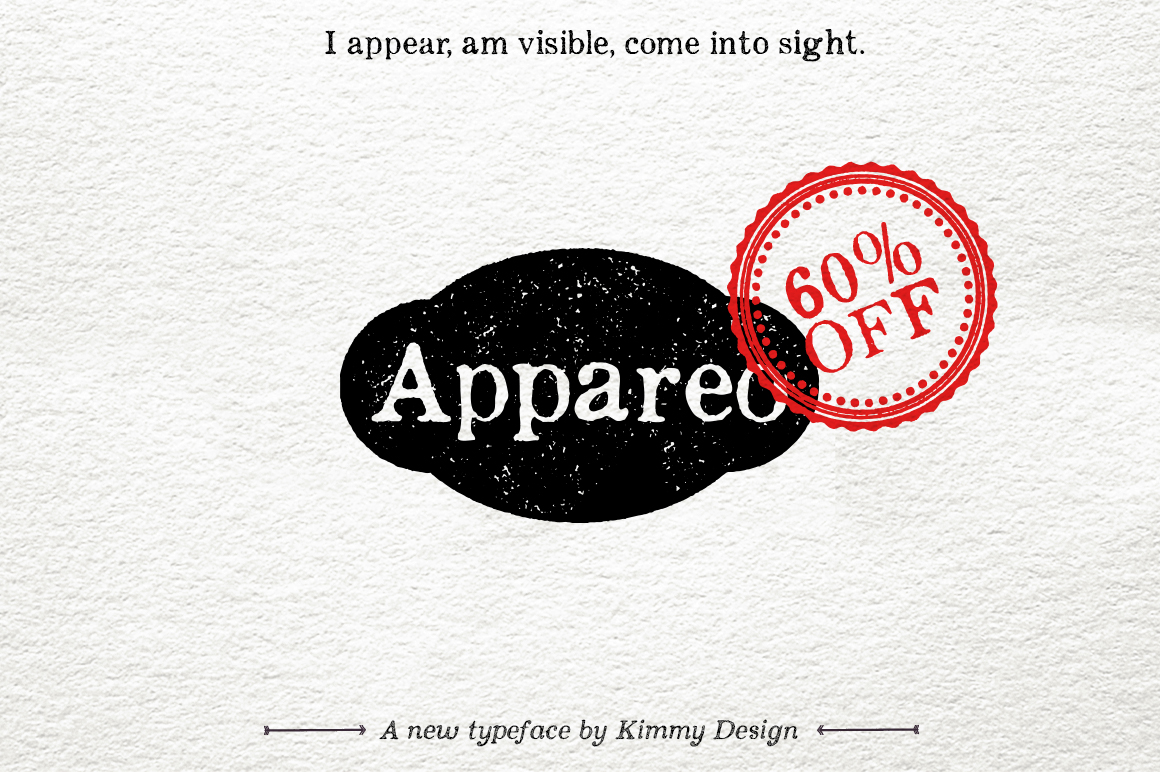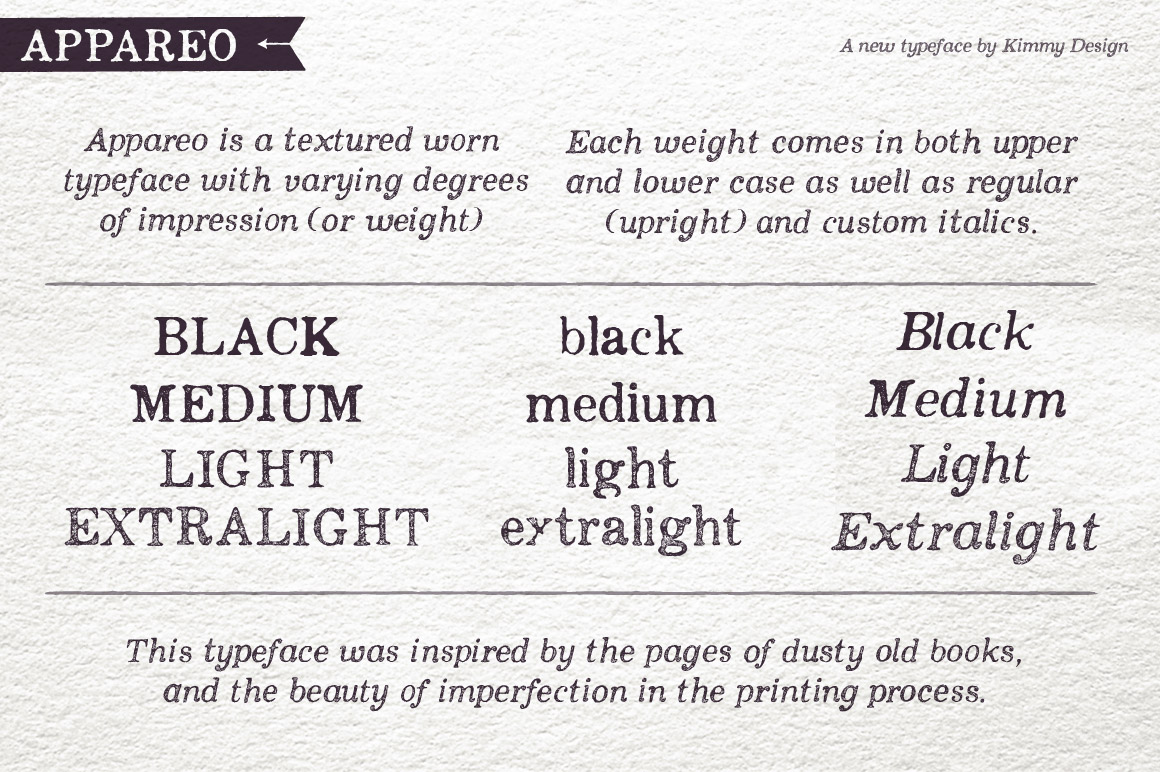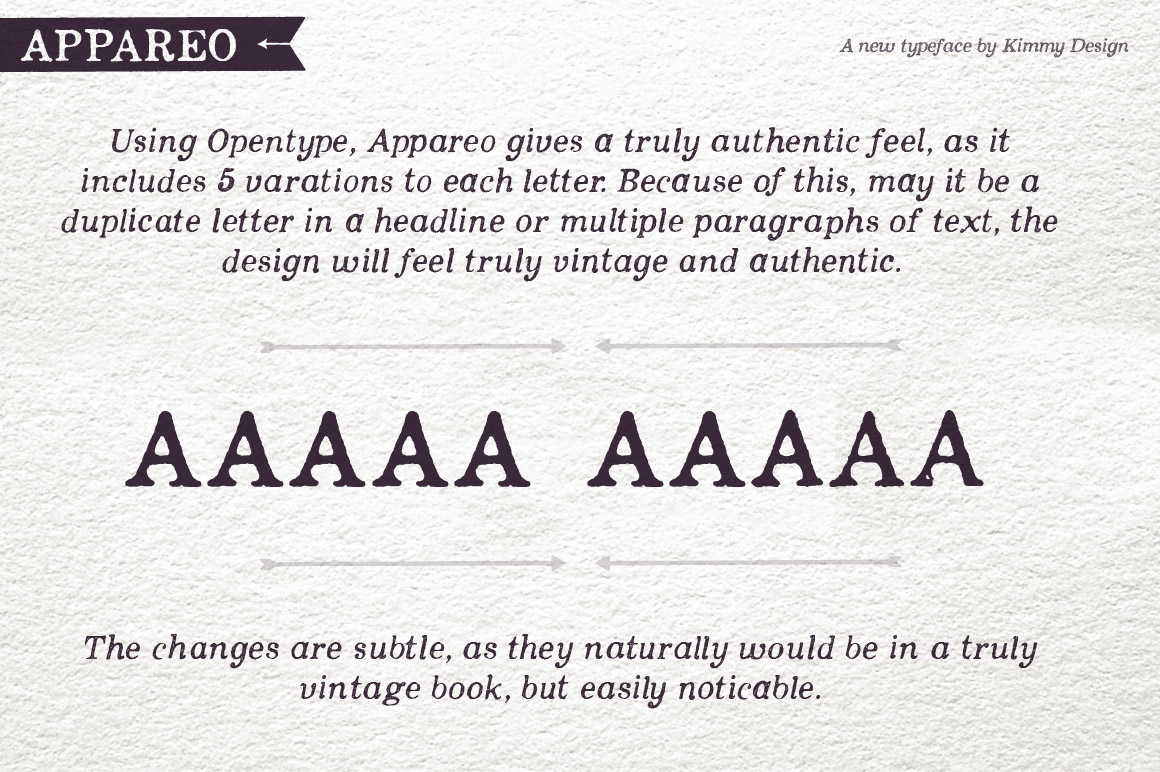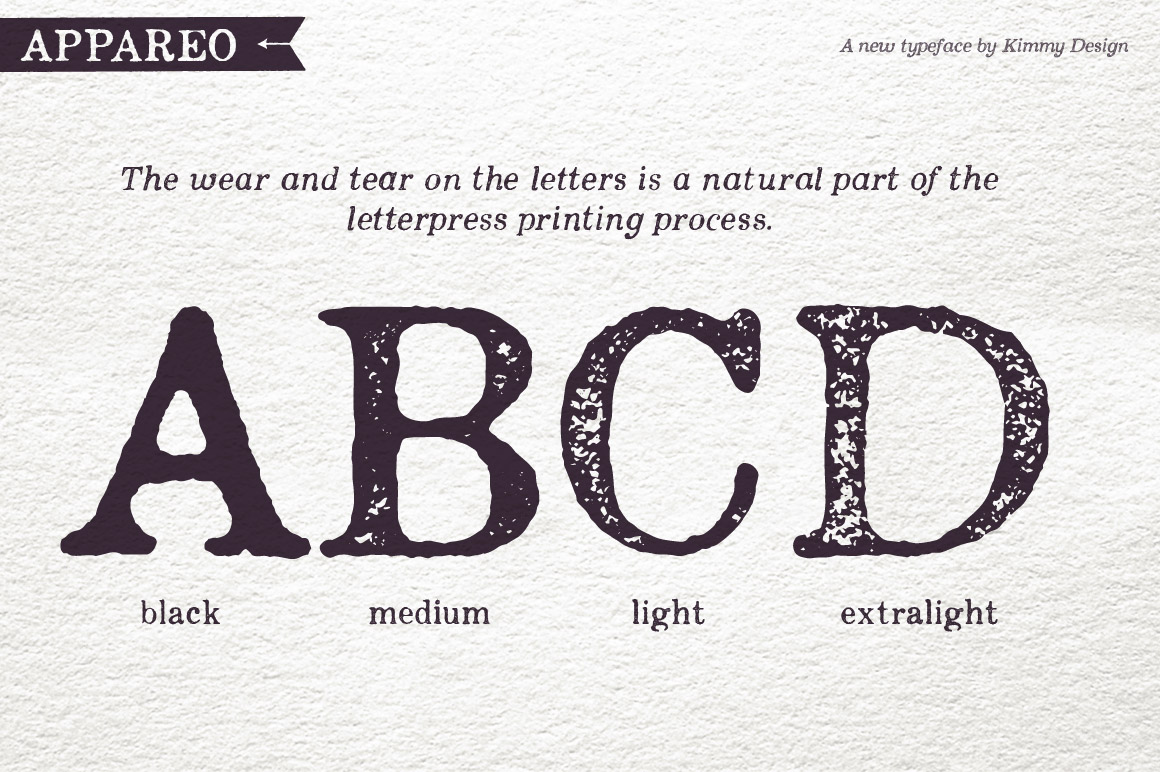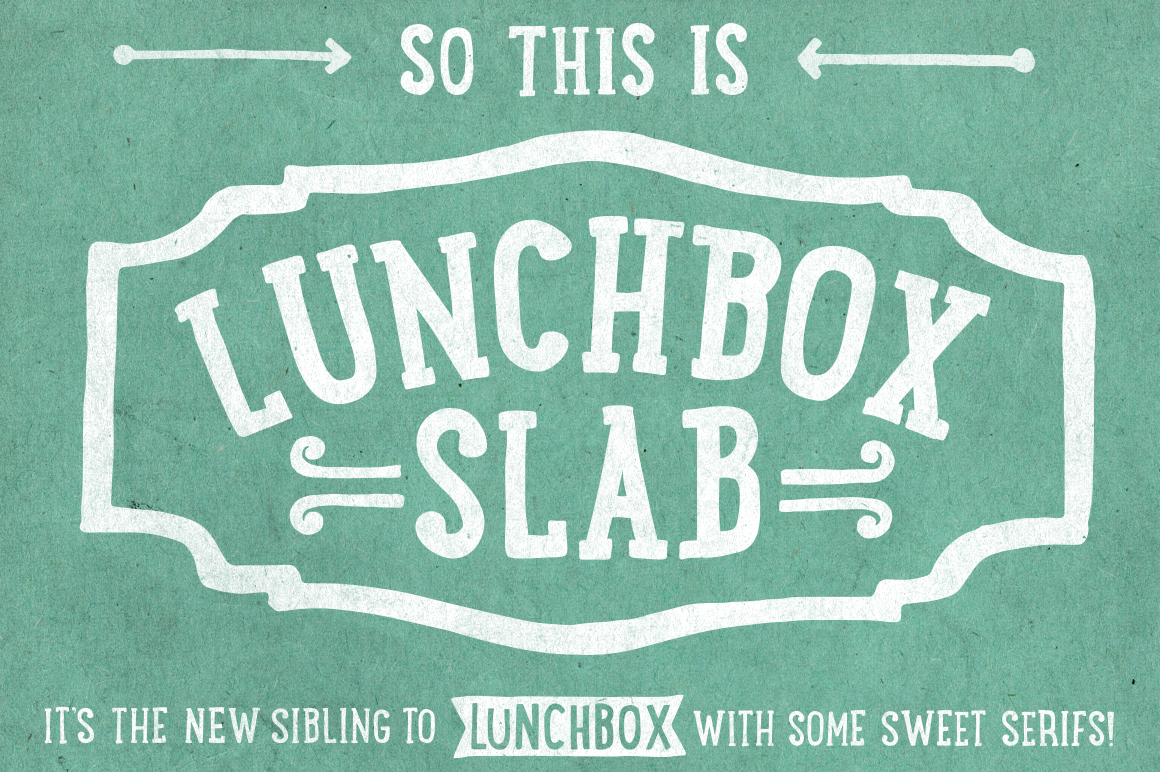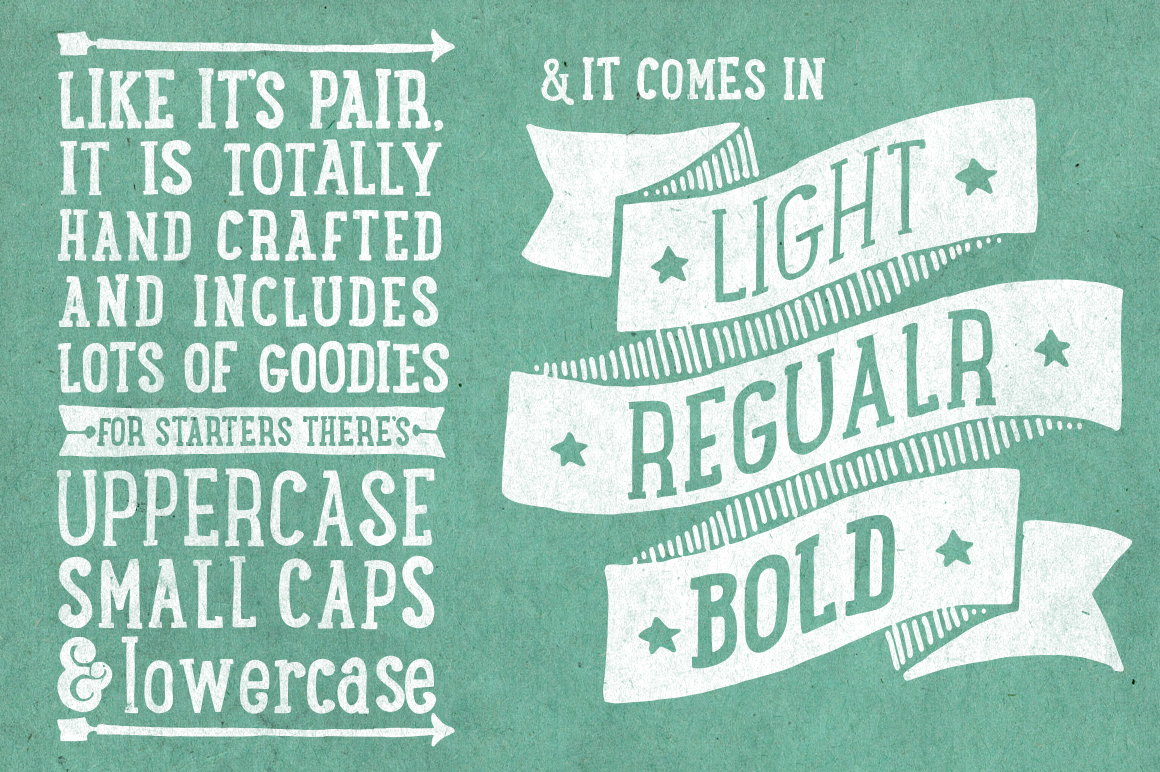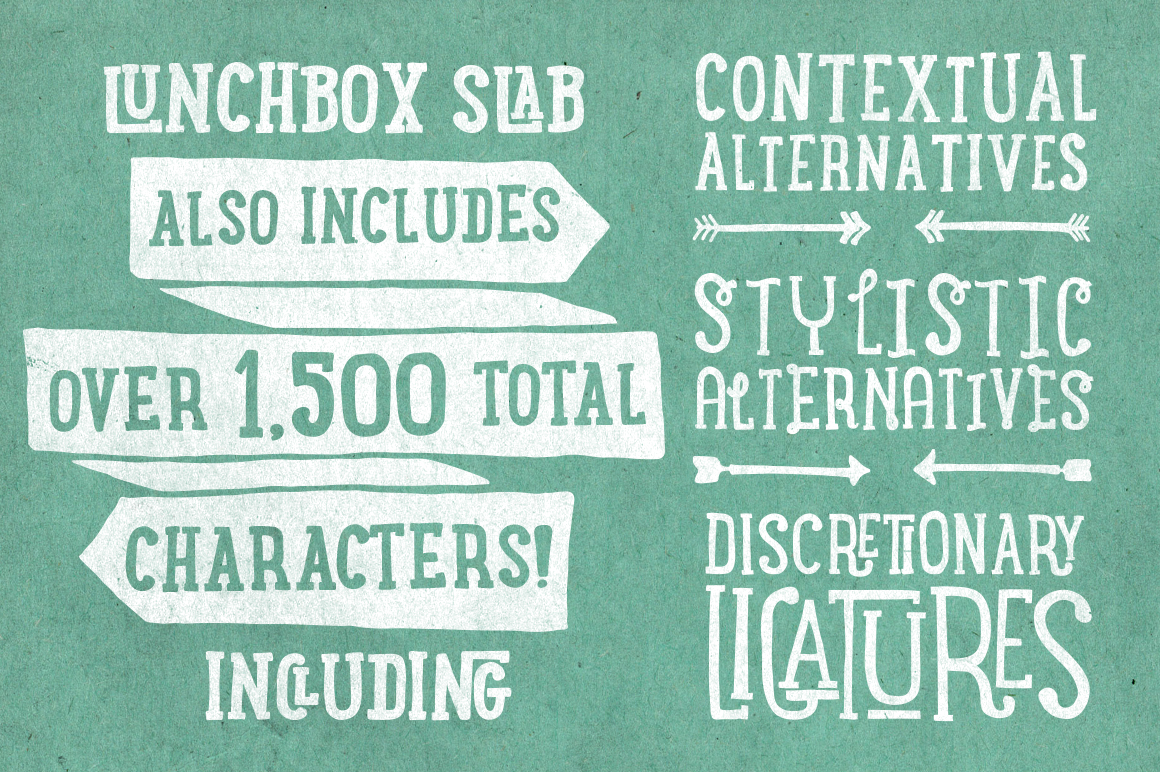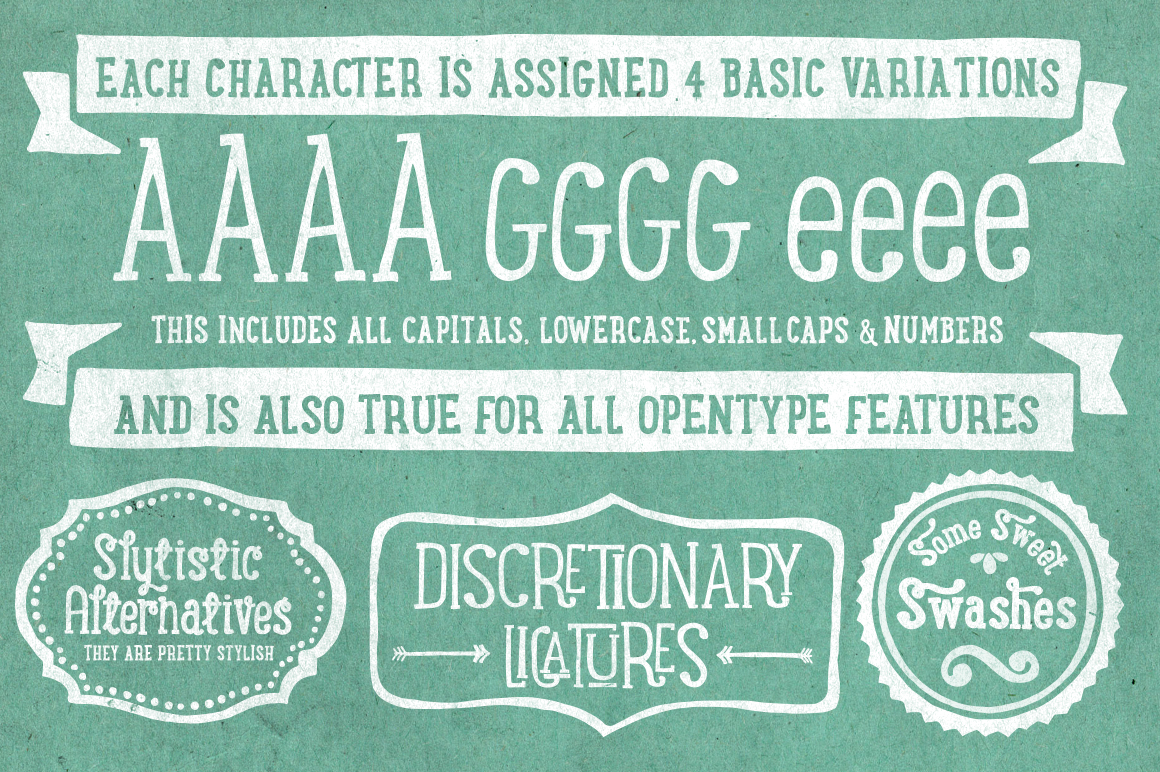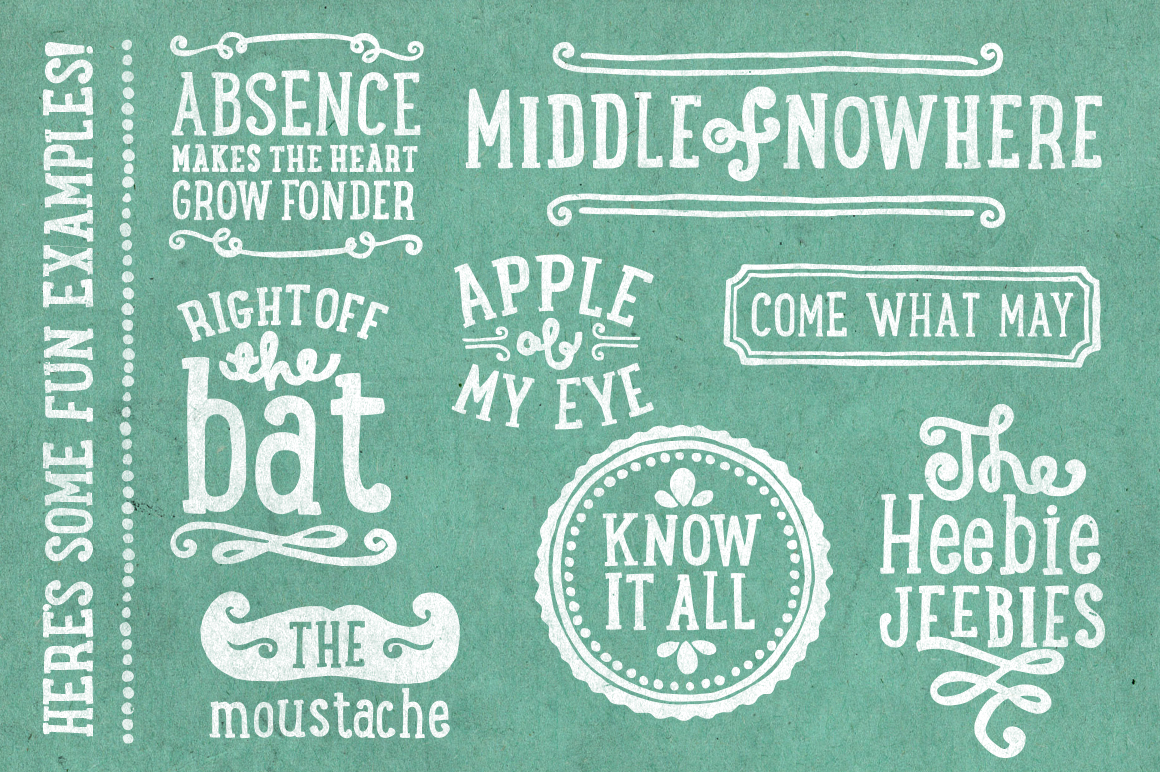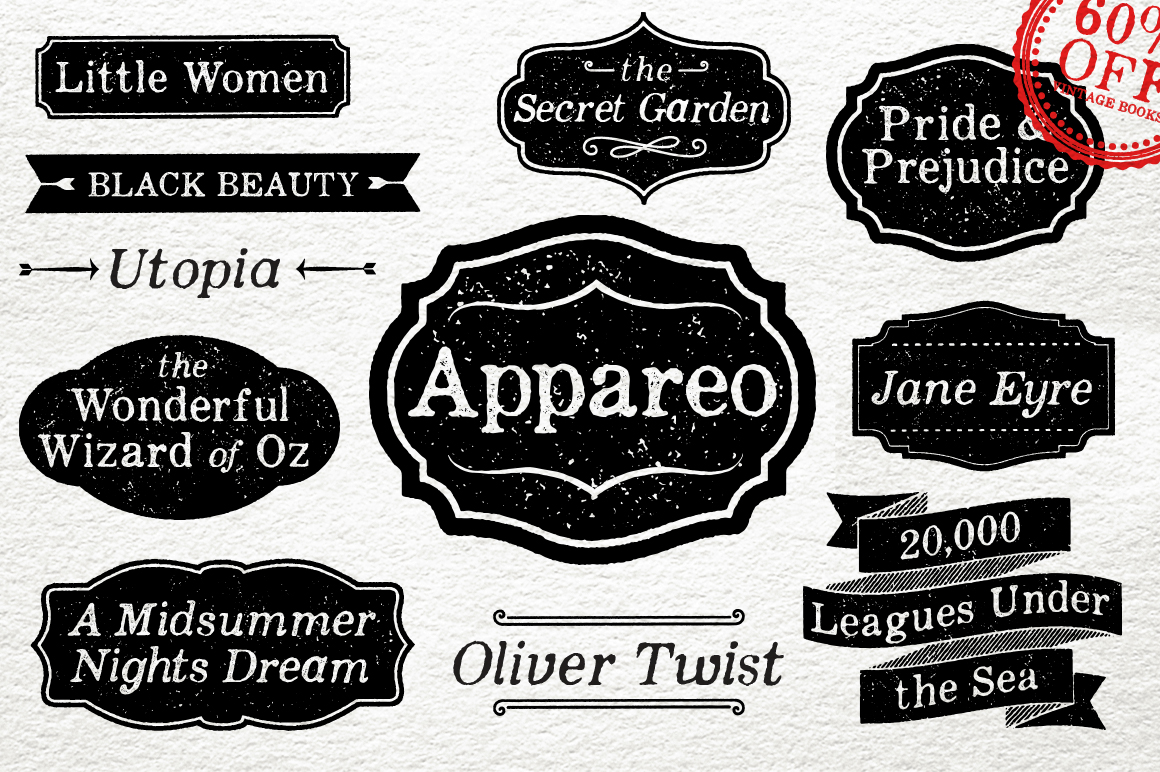
1. Lunchbox by Kimmy Design
Lunchbox is a uniquely handdrawn typeface that gives infinite customizable options and a fully authentic look. This unique font comes in light, regular and bold and includes a wide array of other languages.
Using Lunchbox’s Opentype features gives access to over 1,500 different characters and basically creates 3 different font styles. Contextual alternatives give each letter 4 different character styles, all cycling through each other to ensure that no two letters ever show up together. There is also a custom set of small caps, each with 4 style variations as well. Stylistic alternatives give an extra handdrawn flourish, loop and slight variation, also with 4 different styles per letter.
2. Lunchbox Slab by Kimmy Design
Lunchbox Slab is the pair of Lunchbox, a uniquely hand-drawn typeface that gives infinite customizable options and a fully authentic look. The serifs in Lunchbox Slab are simple blocks, with bulbous terminals on curved letters, which creates a unique effect.
Identical to it’s pair behind the scenes, Lunchbox Slab’s Opentype features allows access to over 1,500 different characters. Contextual alternatives give each letter 4 different character styles, all cycling through each other to ensure that no two letters ever show up together. There is also a custom set of small caps, each with 4 style variations as well.
3. CPL Kirkwood by Kimmy Design
CPL Kirkwood Knockout is an all caps distressed condensed bold sans serif typeface. This version comes in regular and Italics. Goes well with other variations of the family, including regular sans and slab serif and ornaments.
CPL Kirkwood is an all caps distressed condensed bold sans serif typeface. This version comes in regular and Italics.
CPL Kirkwood is an all caps distressed condensed bold slab serif typeface. This version comes in regular and Italics. Goes well with other variations of the family, including sans serif, knockout and ornaments.
CPL Kirkwood Extras is a great compliment to any distressed or textured artwork. It was made to go with CPL Kirkwood font family, but can be integrated into numerous design styles. Comes in font format, EPS and PDF files.
4. Maxwell by Kimmy Design
Maxwell is a clean condensed san serif typeface inspired by similar retro fonts from the 1950’s. It comes in regular and small caps versions, includes stylistic alternatives and via the glyph panel you can access scientific inferiors, fractions, oldstyle numerals, Cyrillic, Greek, Latin and other Western and Central European languages. It can be used as a headline font or paragraph text. Maxwell comes with 20 font files, 5 different weights, both in italics and small caps.
5. Maxwell Slab by Kimmy Design
Maxwell Slab is a clean condensed slab serif typeface. It comes in regular and small caps versions, includes custom italics, stylistic alternatives, letter style variations, discretionary ligatures and multiple languages; Cyrillic, Greek, Latin and other Western and Central European languages and works either as a headline font or paragraph text.
6. Station by Kimmy Design
Station is a bold headline typeface inspired by old Train Station type and graphics. It can be used in a modern and retro way, and it’s different patterns and styles give a unique look to any design.
7. Appareo by Kimmy Design
Inspired by vintage books and the pages within, Appareo is an imperfect, worn serif font that comes in three weights. Each weight is has a varying degree of distress, from Black, in which the press and ink fully set into the page, to Medium, Light and Extralight, where the texture is heaviest. Each weight also has a custom italics version of each character. To fully give the authentic feel of worn pages of dusty of books, Appareo has 5 character variations assigned through Contextual Alternatives using Opentype features. This allows no two same letters to ever be found near each other.
Appareo also has a set of graphic elements, including frame, banners, borders, arrows, etc in the same style and texture.